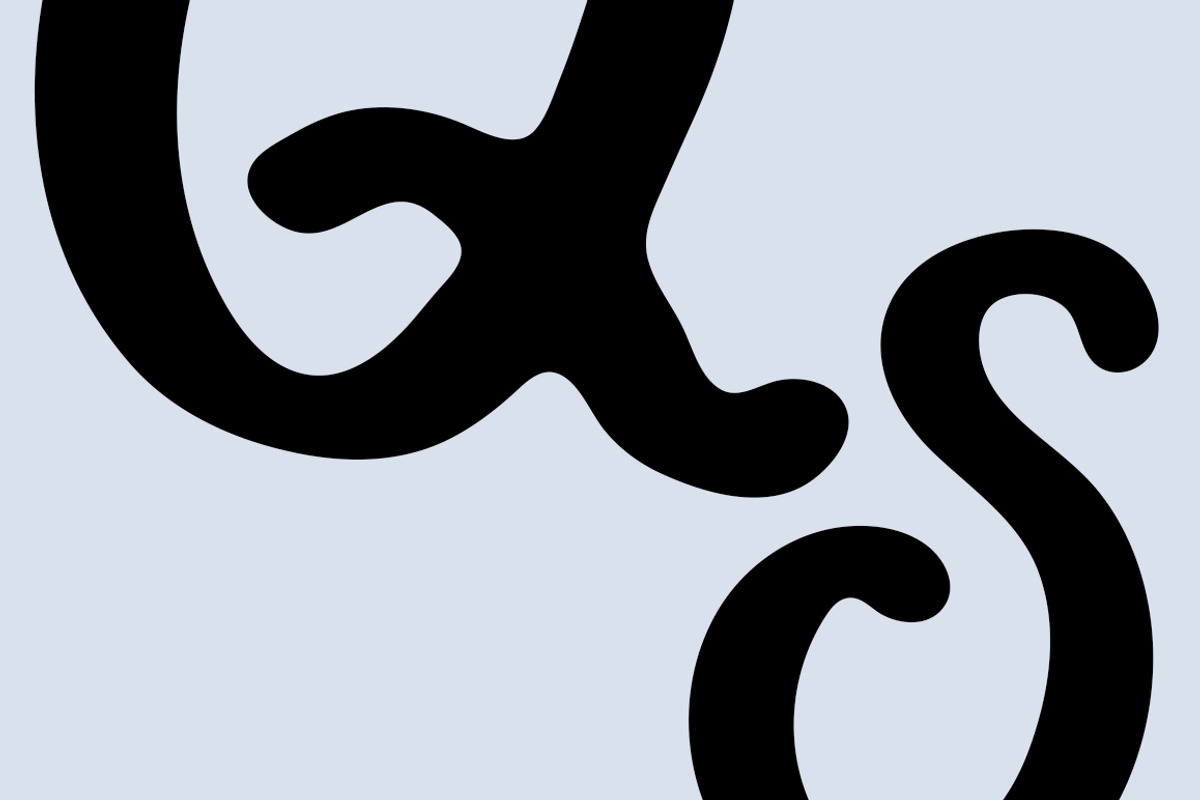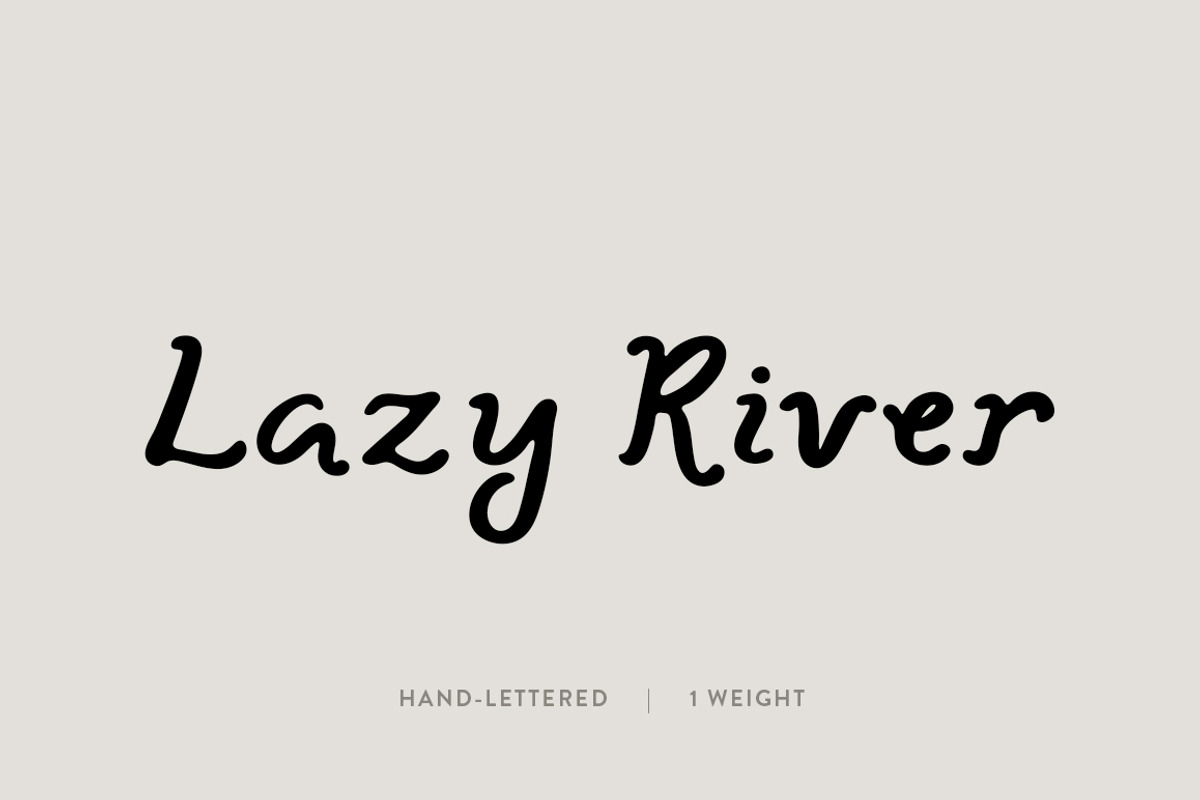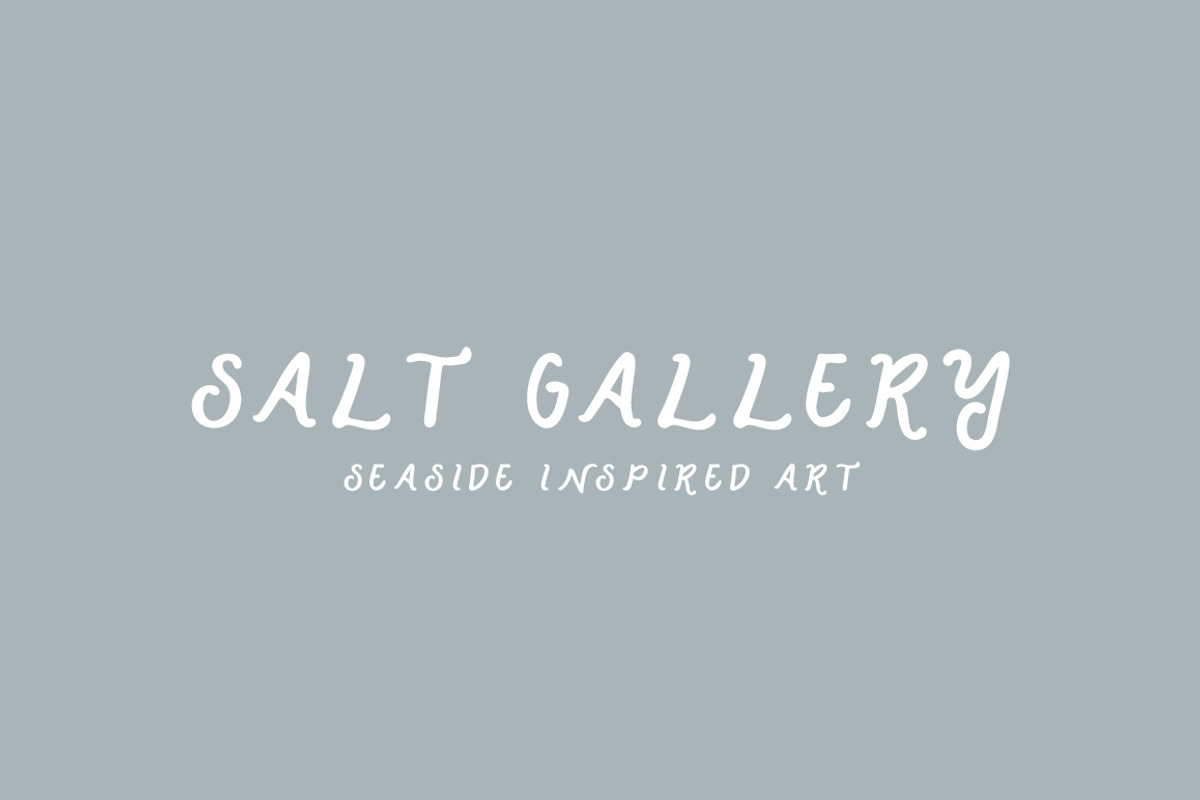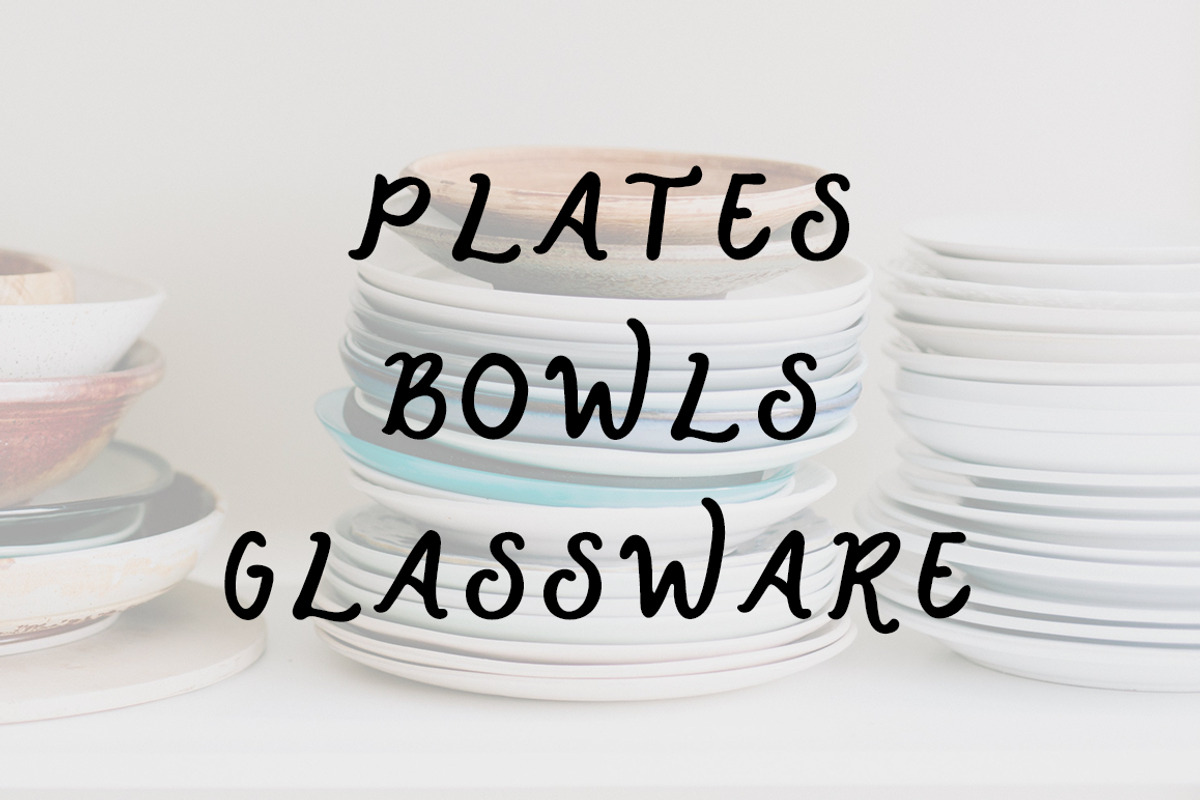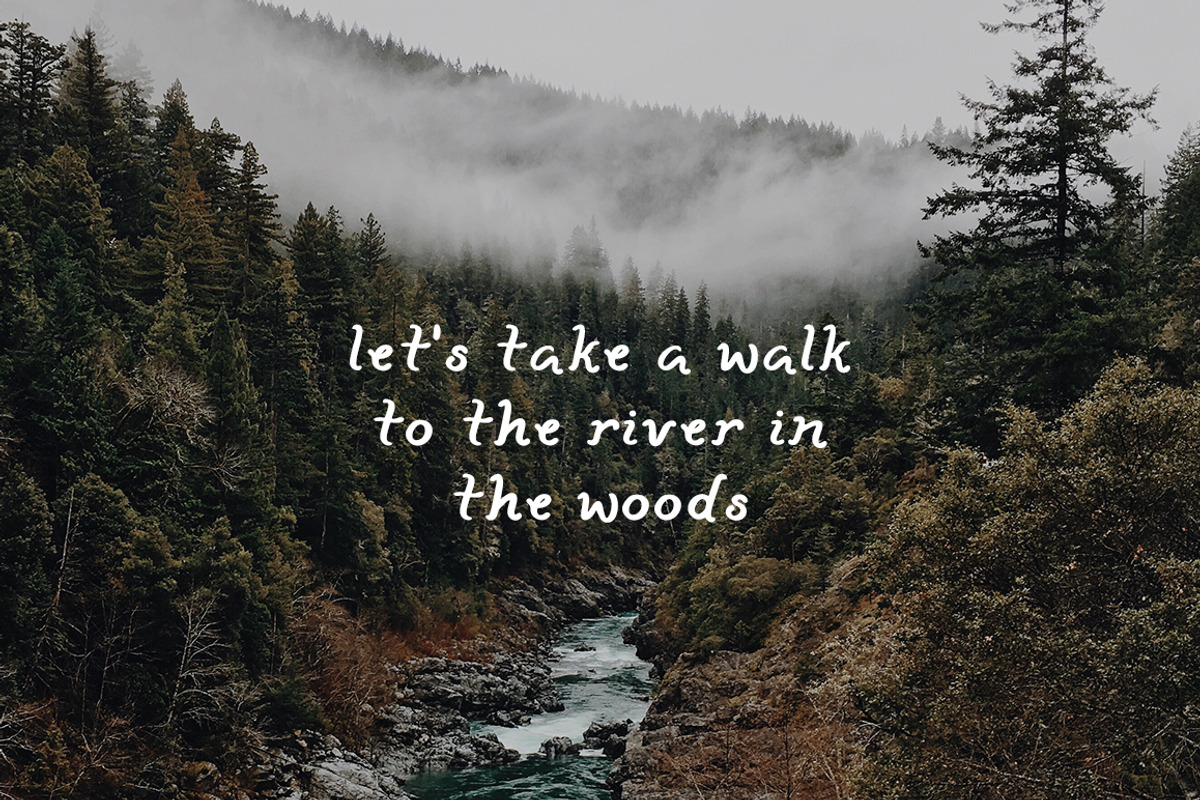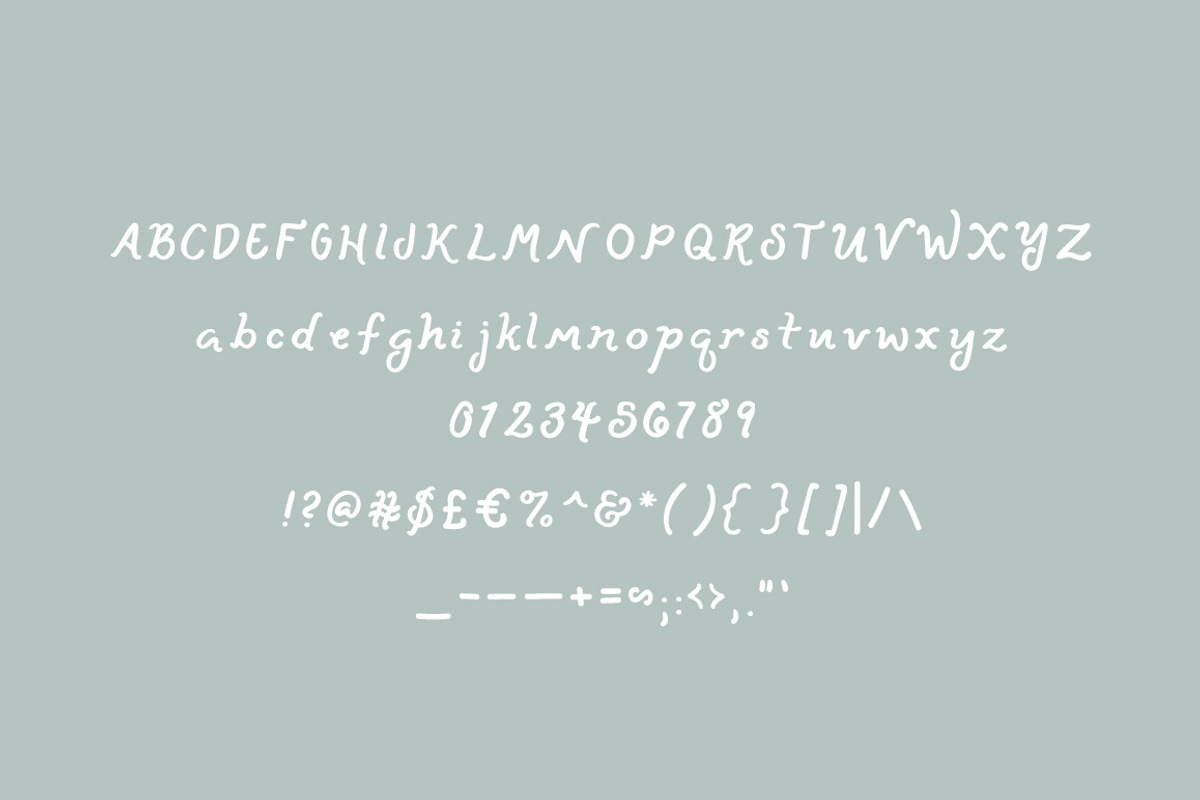
Lazy River: A Water-Inspired Font
The Lazy River Font
Lazy River was inspired by organic river shapes. Whether you are looking down from above or up close, the curves of the edges and the ripples in the water create the lines that have inspired the wavey-ness of these letters. With its organic curves and slants, this font works best as a header font or for smaller bodies of text. It is perfect for projects that need a naturally bold font like blog posts, social graphics, event posters, and perhaps even a logo.
This font was created by hand and then digitized. Enjoy!